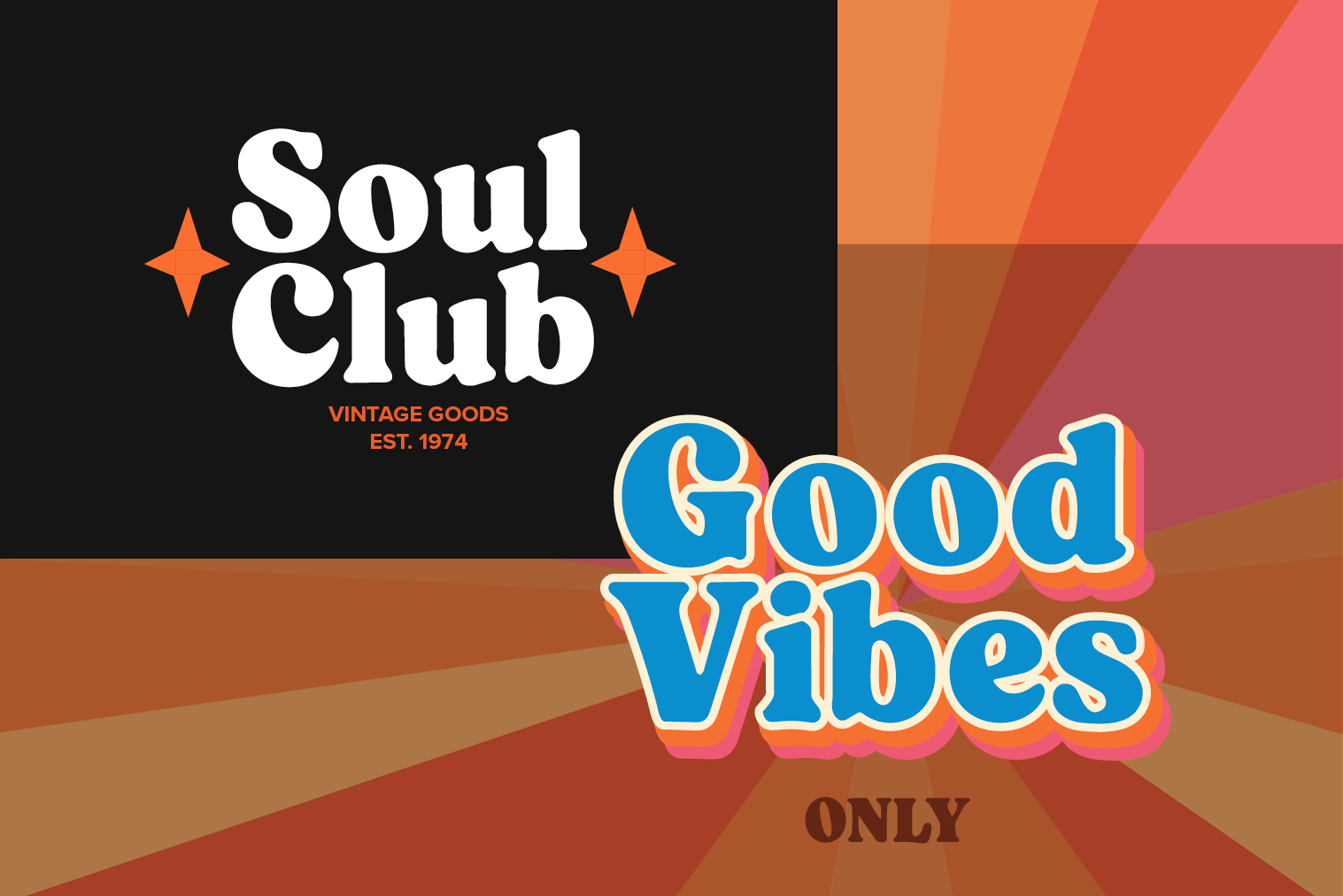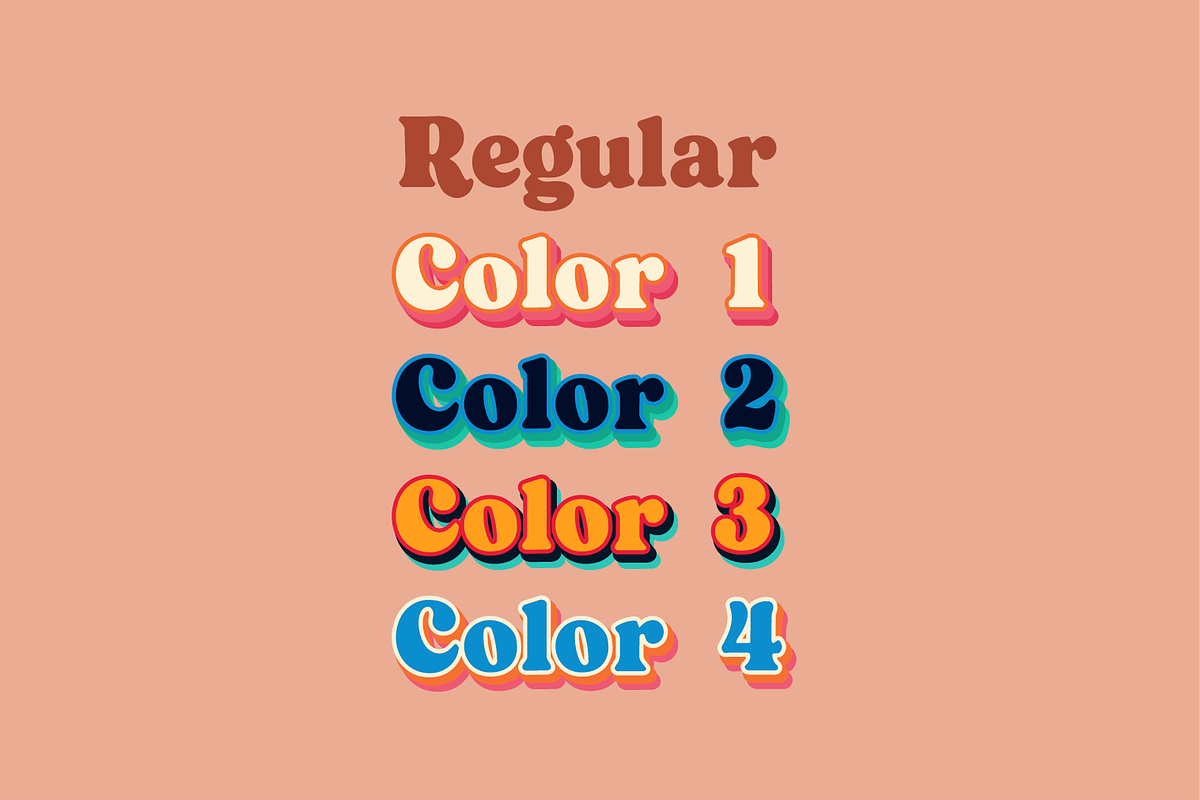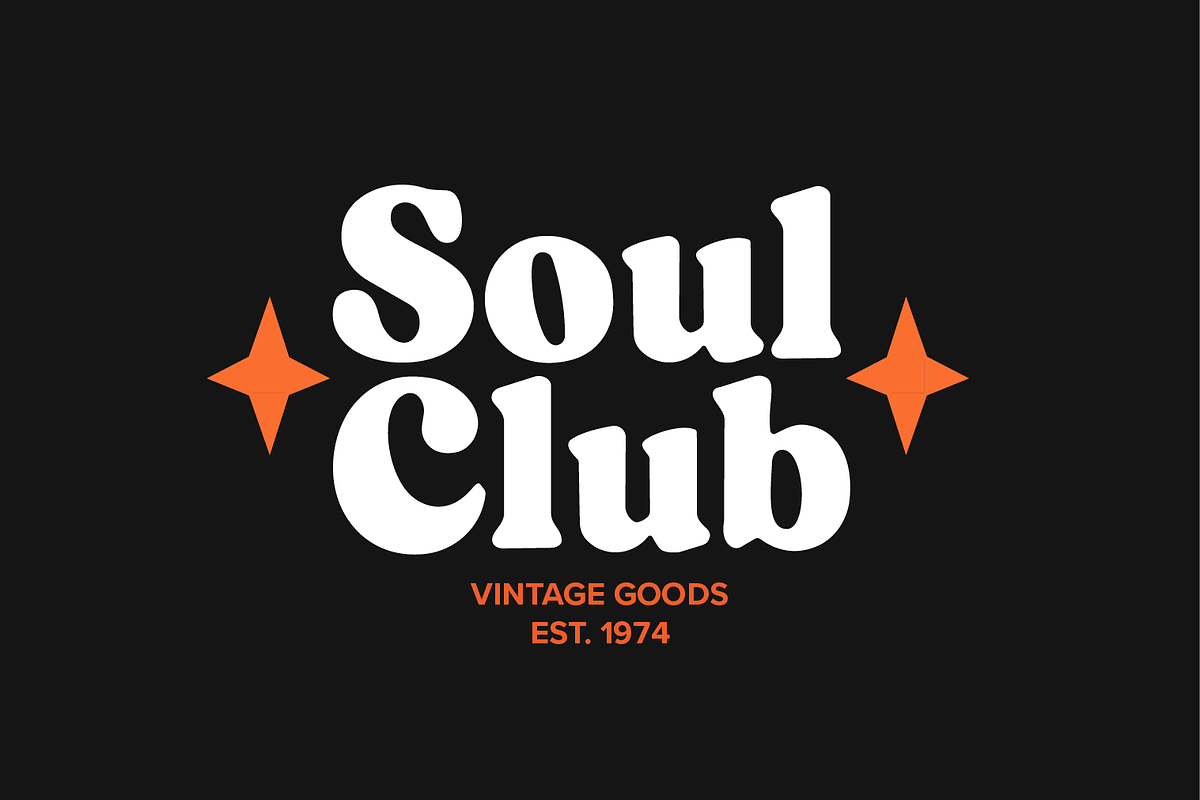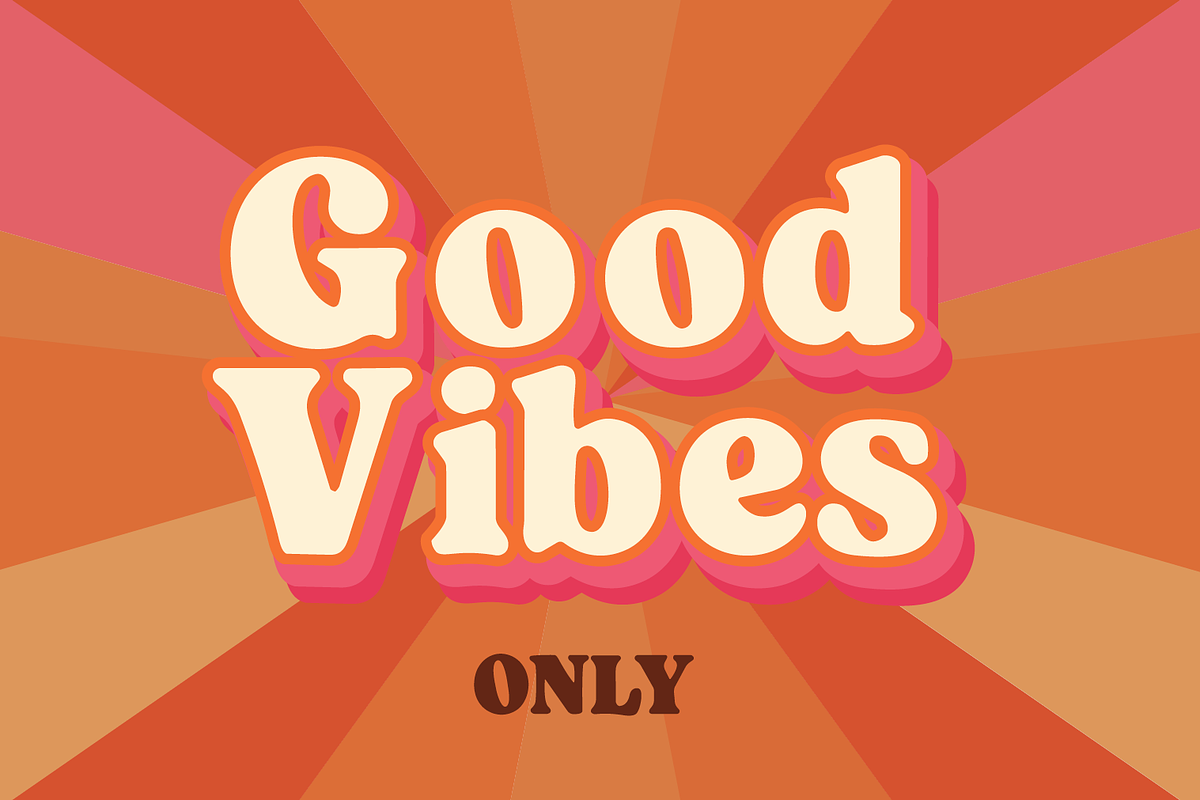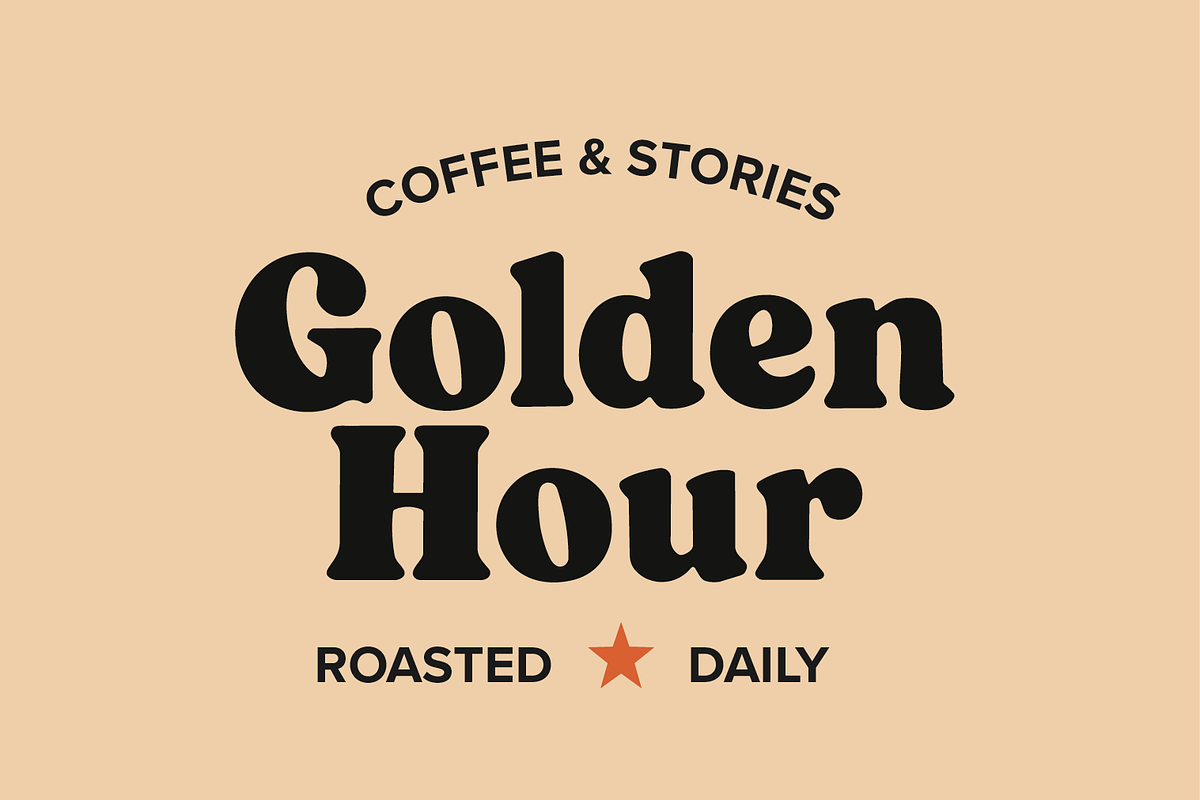
RetroShift – Retro 3D Serif Font
RetroShift – Retro 3D Display Serif Font Family
Bring bold, colorful retro energy to your designs with RetroShift, a playful display serif font family inspired by vintage lettering, groovy typography and nostalgic retro design.
RetroShift includes 5 OTF font styles: one versatile Regular style plus 4 ready-made 3D styles, each featuring its own colorful retro palette.
5 RETRO STYLES
1x Regular A versatile retro display serif that can be customized with any color in your design software.
4x 3D Styles Four colorful 3D font styles with built-in dimensional layering and retro-inspired color combinations.
No need to manually create shadows, offsets or 3D effects — the styles are ready to use.
RetroShift is made for bold display typography and works beautifully for:
Retro posters
Vintage posters
70s-inspired designs
80s-inspired graphics
Branding
Logo design
Packaging
Product labels
T-shirt designs
Stickers
Advertising
Album covers
Music artwork
Café and restaurant branding
Editorial headlines
Titles
Greeting cards
Invitations
Creative personal projects
RetroShift combines a chunky, playful serif shape with colorful dimensional typography.
Use the Regular style when you want complete color control, or choose one of the four 3D styles for an instant vintage look.
The typeface is especially suited to retro, vintage, groovy, colorful, nostalgic, playful, chunky and 70s-inspired design aesthetics.